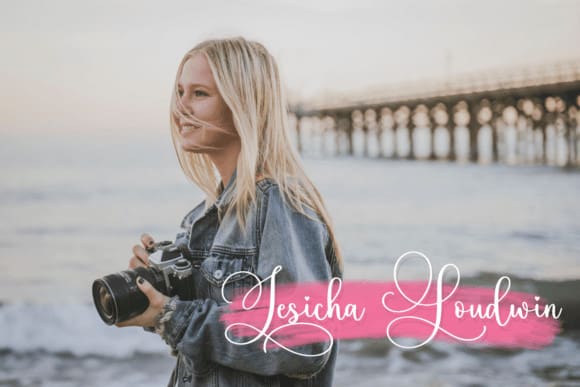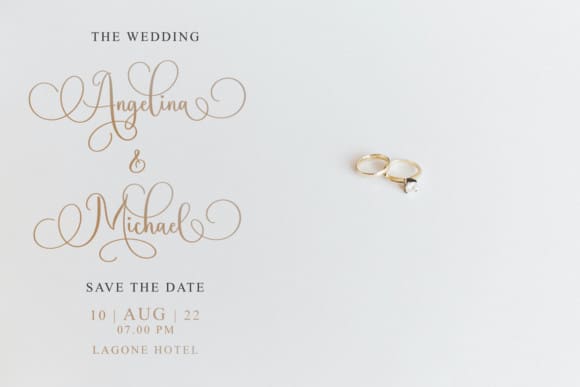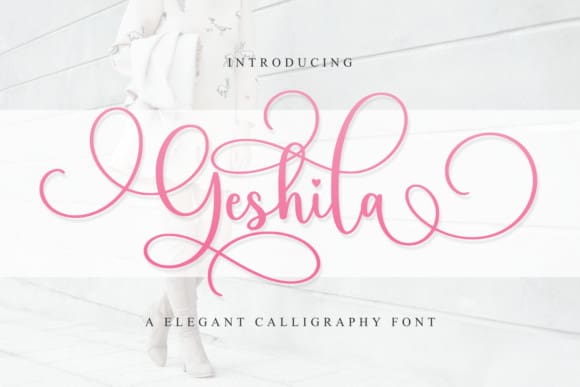
Geshila Font
Geshila Font is an elegant and classy calligraphy script font. Add it to your logos, labels, branding, invitations, websites, quotes, and more, and it will boost your designs and make them a true standout!